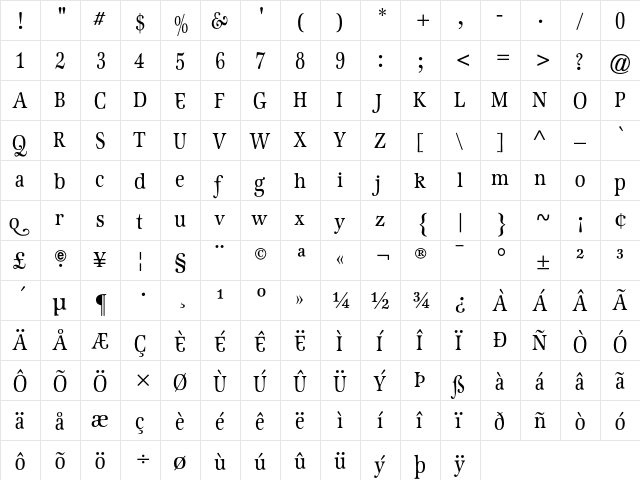
GeistSerifa Regular
Design Context for GeistSerifa Typeface
GeistSerifa carries the refined structure of traditional serif typography, with bracketed terminals and considered proportions that communicate credibility and craft.
Pro Tip: Set GeistSerifa with slightly loose tracking in headlines to let each letterform's detail read clearly at display sizes.